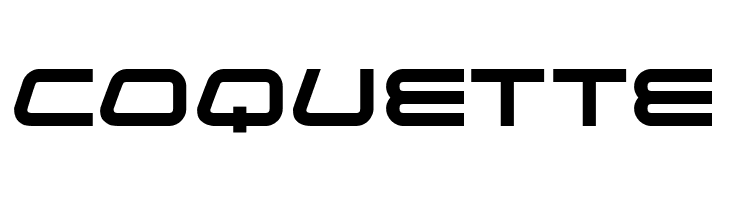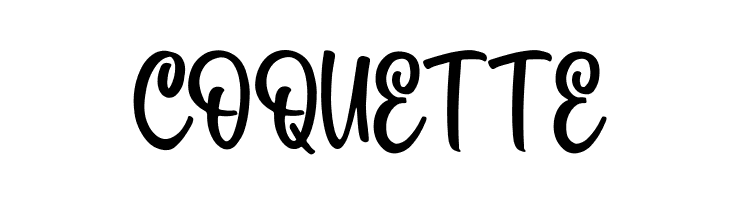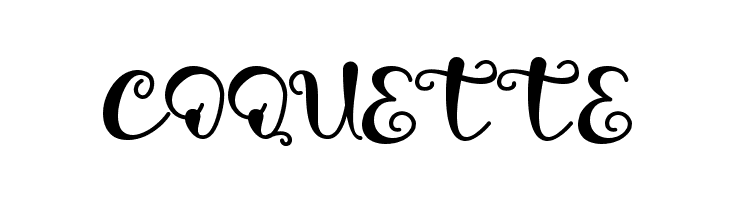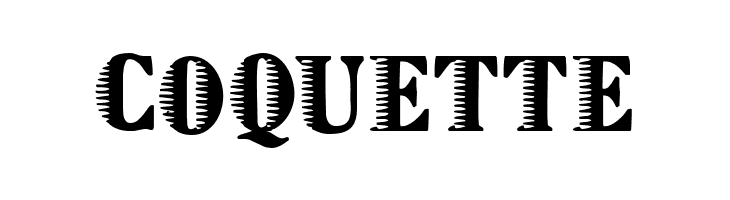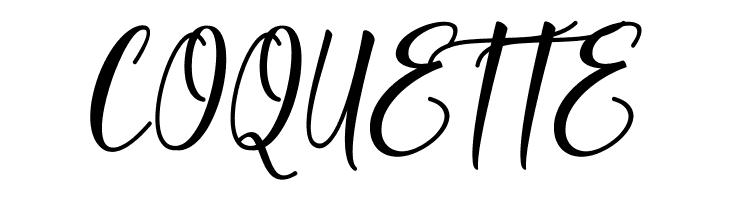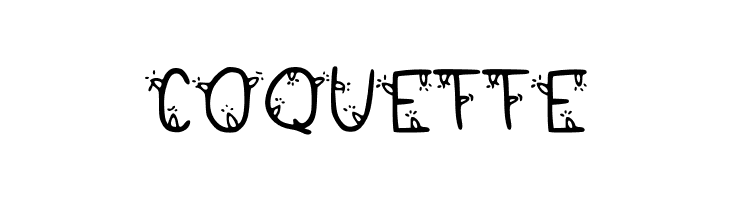
A playful, hand-drawn script font with bold, rounded characters.
A festive, decorative font with playful holiday embellishments.
A dynamic and elegant script font with fluid, cursive strokes.
A futuristic, geometric font with clean lines and a modern aesthetic.
A playful, romantic script font with whimsical flourishes and heart motifs.
A bold, decorative serif font with a shadow effect, ideal for vintage designs.